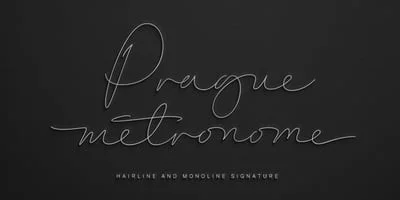
Prague Metronome Font
The Prague Metronome Font excels in various design applications including Czech cultural heritage branding, Prague tourism marketing, classical music conservatory communications, rhythmic arts academy materials, Czech Republic cultural center identities, European heritage festival promotions, Prague symphony orchestra signage, Czech cultural museum exhibitions, metronome manufacturer packaging, and distinguished Central European projects that demand Czech elegance and musical sophistication.
What makes the Prague Metronome Font exciting is its rhythmic embodiment of Czech cultural heritage and musical precision through letterforms that capture the essence of Prague's rich musical tradition and the steady tempo of metronome guidance. This typeface demonstrates exceptional rhythm through carefully crafted characters that suggest the precise timing of classical music, the architectural beauty of Prague's historic buildings, and the cultural sophistication that makes Czech heritage so musically significant and architecturally magnificent. The font's metronome personality makes it perfect for cultural organizations and music institutions seeking to communicate Czech authenticity, musical precision, and the kind of rhythmic elegance that creates memorable Prague experiences through typography that literally keeps perfect time with cultural rhythm.
The Prague Metronome Font family typically includes rhythmic weight variations that enhance the Czech aesthetic, featuring musical proportions and extended character sets supporting Czech linguistic requirements and Central European cultural applications. These family options often include Prague-inspired alternates, musical symbols, and Czech decorative elements that provide designers with comprehensive tools for creating authentically Czech typography that celebrates Prague culture while maintaining contemporary design appeal and musical credibility.
Cultural heritage professionals and Czech tourism organizations consistently select Prague Metronome Font for projects requiring typography that communicates Czech authenticity and musical sophistication. This typeface delivers exceptional performance in cultural marketing, Prague branding, and heritage communications where establishing rhythm and creating Prague atmosphere is essential for cultural appreciation. The font's metronome character makes it particularly effective for music and tourism applications. Download Prague Metronome Font today to access this culturally rhythmic typeface that transforms Czech communications with its Prague elegance and musical sophistication, creating compelling cultural experiences that honor the magnificent musical heritage of Prague while celebrating the precise rhythm that defines authentic Czech culture and Central European excellence.